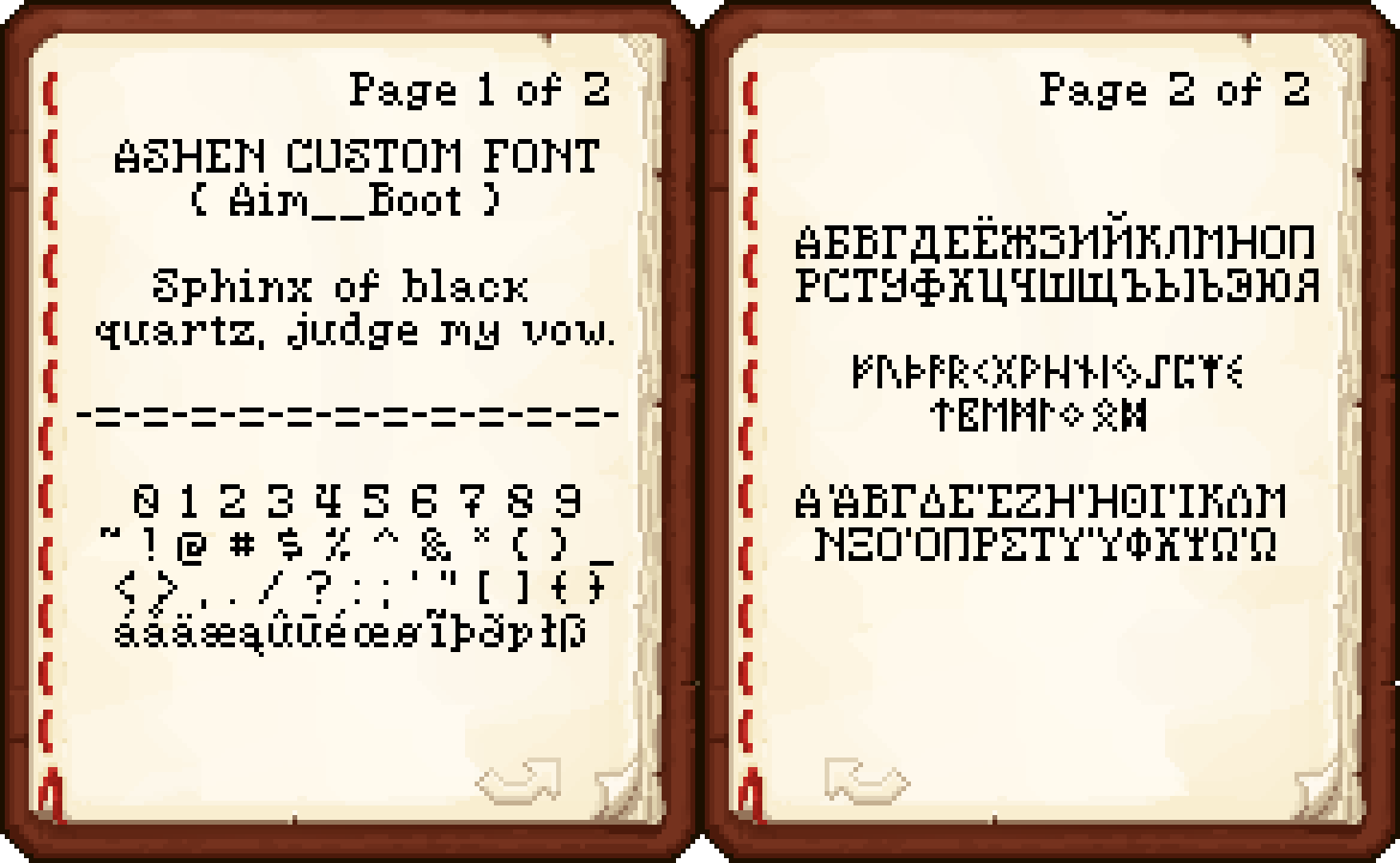
Ashen 16x Custom Font
By
Aim__Boot
A custom, medieval-fantasy-inspired, 16x font for Minecraft.
Brief samples of some of the characters available with Ashen